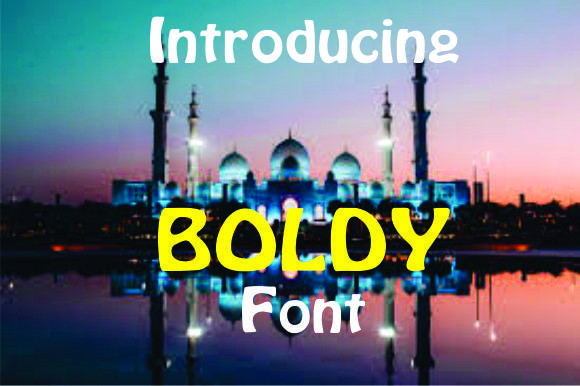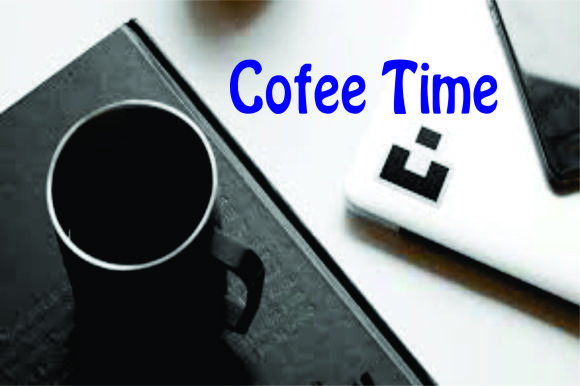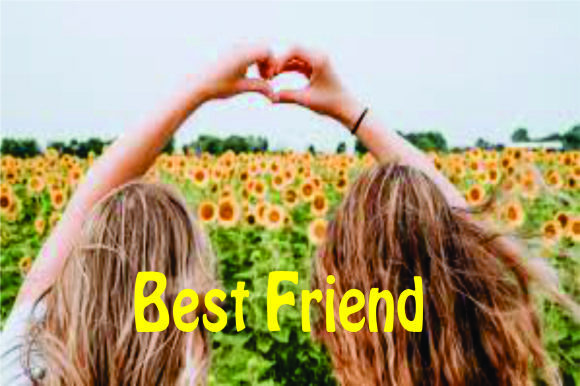
Introducing Boldy Font: The Ultimate Display Font for Stunning Designs
Are you tired of using the same old fonts in your designs? Look no further! Boldy Font is here to revolutionize your creative projects with its cool and fresh display font style. In this article, we’ll dive into the world of Boldy Font, exploring its features, benefits, and uses, and provide you with valuable insights on how to make the most of this amazing font.
What is Boldy Font?
Boldy is a modern display font designed to make any design stand out. Its unique and stylish letterforms are perfect for creating eye-catching headlines, titles, and captions that demand attention. With its clean and crisp lines, Boldy Font is ideal for a wide range of design projects, from branding and advertising to packaging and digital media.
Key Features of Boldy Font
- Unique and Stylish Design: Boldy Font boasts a distinctive and modern design that sets it apart from other fonts.
- High-Quality Letters: The font features clean and crisp lines, ensuring that your designs look professional and polished.
- Versatile and Flexible: Boldy Font can be used for a variety of design projects, from print to digital media.
- Easily Customizable: The font is highly customizable, allowing you to adjust the size, color, and style to suit your design needs.
Benefits of Using Boldy Font
So, why choose Boldy Font for your design projects? Here are just a few benefits you can expect:
- Instant Impact: Boldy Font is designed to grab attention and make a lasting impression on your audience.
- Professional Look and Feel: The font’s clean and crisp lines ensure that your designs look professional and polished.
- Time-Saving: With Boldy Font, you can create stunning designs in no time, saving you hours of design time.
Uses of Boldy Font
Boldy Font is perfect for a wide range of design projects, including:
- Branding and Advertising: Use Boldy Font to create eye-catching logos, billboards, and ad campaigns that demand attention.
- Packaging Design: Add a touch of style and sophistication to your product packaging with Boldy Font.
- Digital Media: Use Boldy Font to create stunning social media graphics, blog posts, and website headers.
- Crafting and DIY Projects: Add a personal touch to your crafting and DIY projects with Boldy Font.
Tips and Tricks for Using Boldy Font
To get the most out of Boldy Font, here are a few tips and tricks to keep in mind:
- Pair with Other Fonts: Boldy Font pairs well with other fonts, so don’t be afraid to get creative and try out different font combinations.
- Use for Headlines and Titles: Boldy Font is perfect for headlines and titles, so use it to create eye-catching text that demands attention.
In conclusion, Boldy Font is a cool and fresh display font that’s perfect for designers and crafters looking to add a touch of style and sophistication to their projects. With its unique and stylish design, high-quality letters, and versatility, Boldy Font is an excellent choice for a wide range of design projects. So why wait? Download Boldy Font today and start creating stunning designs that demand attention!